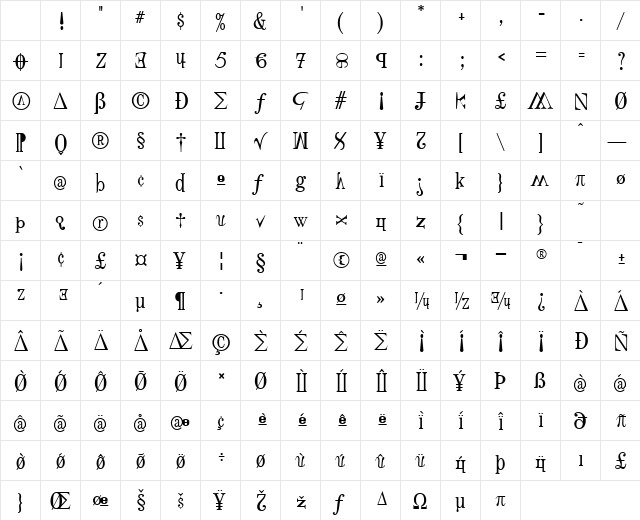
Complete Accumulation Regular glyph index. Displaying only characters natively supported by Accumulation Regular font.
Accumulation is a composed and adaptable typeface that performs quietly and consistently across a wide range of design contexts.